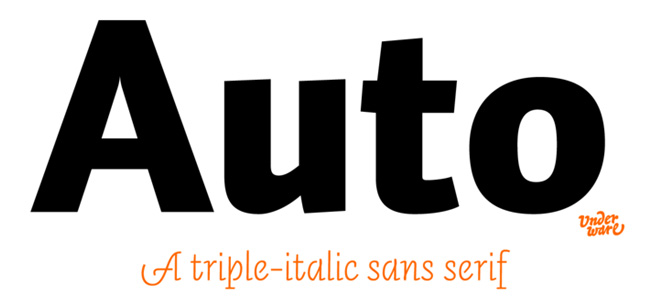
Auto Pro
Auto Pro is not just one of the many fonts recently released. It is a real humanist Sans Serif Pro family with very warm and friendly look. What is quite visible here that Auto Pro is very distinguished in two main aspects – first it has very contemporary and unique look and second, its level of sophistication is so high that it could amaze everyone from professional typographer to a top graphic designer. Auto Pro is developed in 4 separate weights – well, 4 is not like 16 for example, but if you take a look closer, you’ll discover a real abundance of styles inside each weight. Not counting the roman style, you will receive 3 different italics and dedicated small caps also developed in roman and italic style – now this makes the total of 6 styles per weight which means that the whole family consists of 24 amazing fonts! You will also find designer’s attention in every letter and every curve – you will find details from stencil typography, you will find modernized calligraphic elements, you will find a controlled humanist style and of course – an overall professional touch that makes Auto Pro a unique font family. You can play with contrast by picking different weights, you could play with styles and combine them with one another, you could use it as text font or you could make strong high contrast headlines. This family simply gives you everything you need – diversity, contrast, linguistic support, OpenType extras, originality and professional contemporary style. We highly recommend you to get the whole family – it will give you countless number of options for your work and it will eliminate the need of buying other fonts and thus it will save you some extra cash.
We really can’t hide our pleasure and satisfaction from this family – it is so fresh and useful that it could easily solve any design task from 8 pt text column, newspaper headline or book cover to poster, t-shirts, signboards and even logos. Auto Pro is also an absolute leader in screen use – perfect for webfont, e-books, mobile apps, web sites – even on low resolution monitor this family will perform perfectly due to its optimized geometry, balanced contrast, increased x-height and delicate condensed look.
Auto Pro font family is created by Bas Jacobs, Akiem Helmling, Sami Kortemäki and published by Underware type foundry.